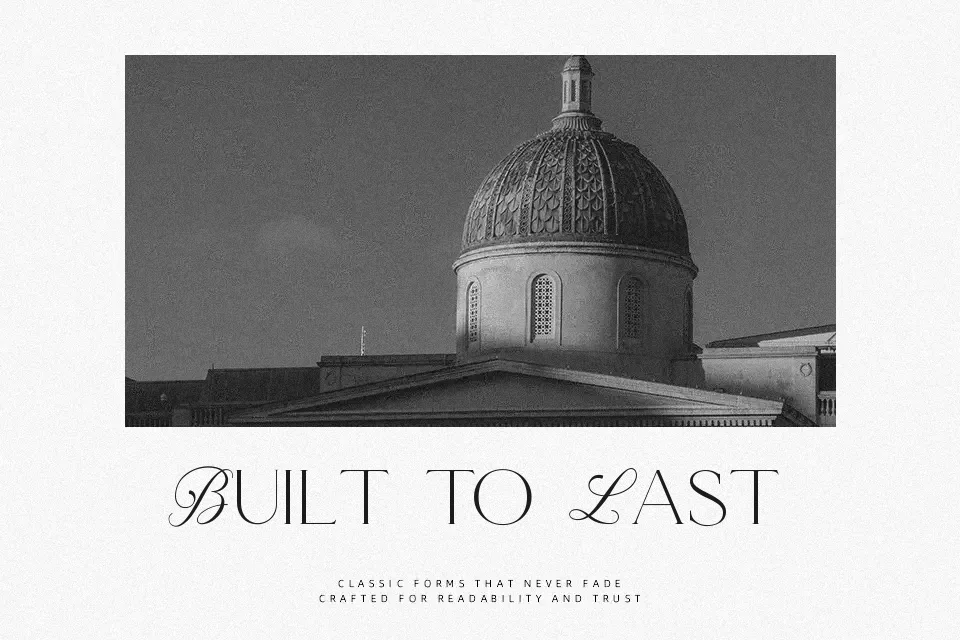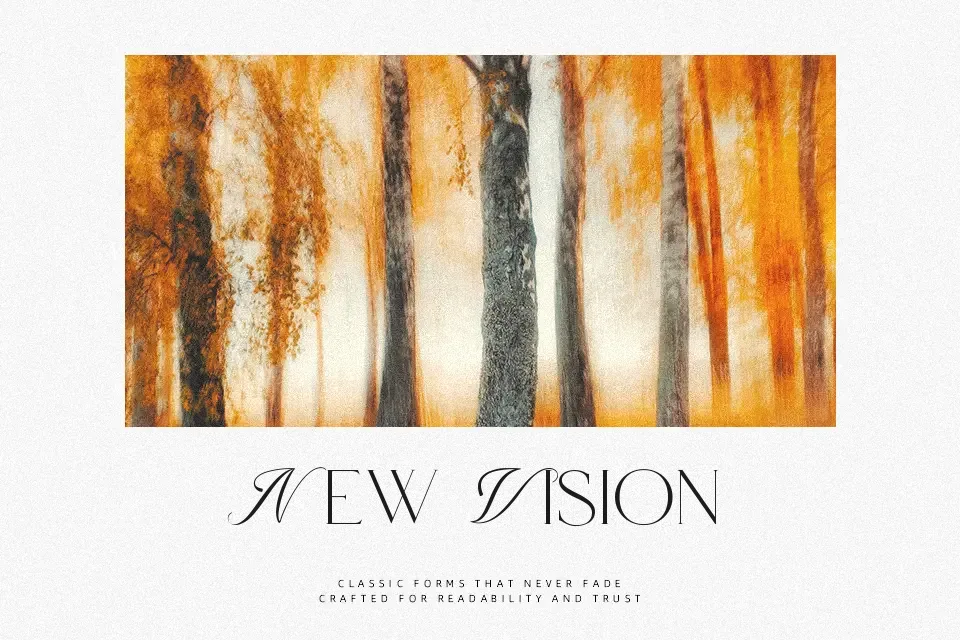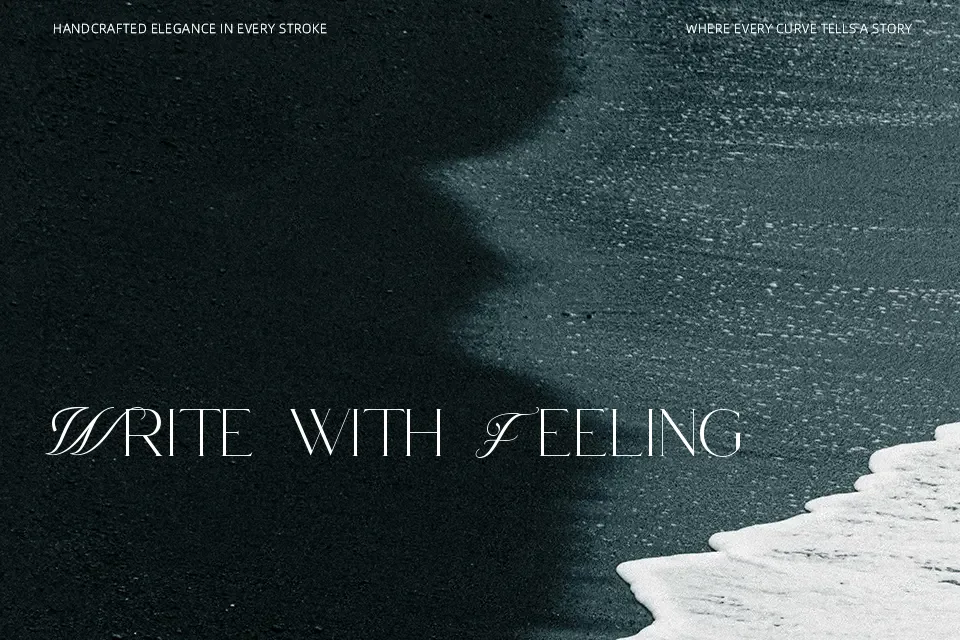
Seaword Font
Designed by Graphicxell
Seaword Font combines traditional serif anatomy with pronounced stroke contrast and graceful calligraphic flourishes. The uppercase characters display flared terminals and sweeping arcs, creating a distinct rhythm when set in spacious headline layouts. Moderate letter spacing and delicate hairline transitions give the typeface an open, sophisticated texture in prominent titles and brand marks. While the generous proportions and sharp junctions preserve individual letter recognition at medium to large scale, the intricate fine details tend to break down in small text blocks. Consequently, the design delivers exceptional impact for boutique product labels and editorial covers but remains unsuited for dense body copy.
Best For: luxury product packaging, wedding invitation suites, editorial magazine covers, cosmetics branding
Not Ideal For: long paragraph text, mobile app body copy, technical data tables, dense documentation
Perfect for branding, headline, and logo, with a classic and calligraphy style.